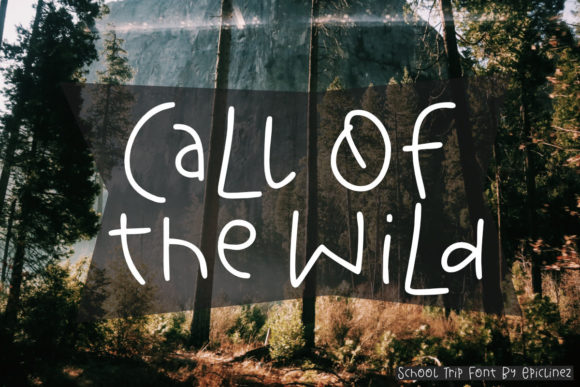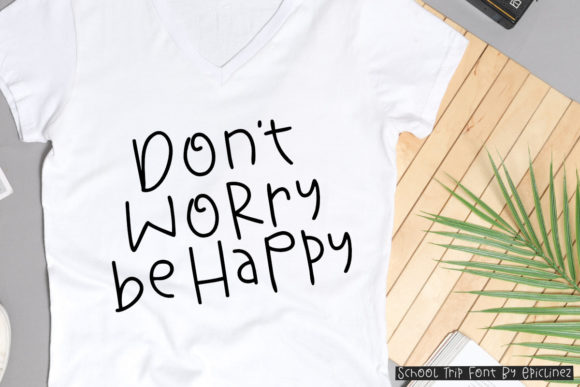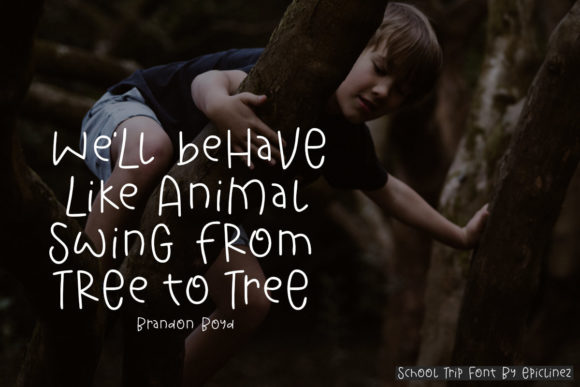
Introduction to School Trip Font
School trip is a cute and adorable handwritten font thatโ€™s perfect for childrenโ€™s projects.
A little bit quirky and uneven, this typeface is a great match for childrenโ€™s books, booklets, illustrations, magazines, and more .